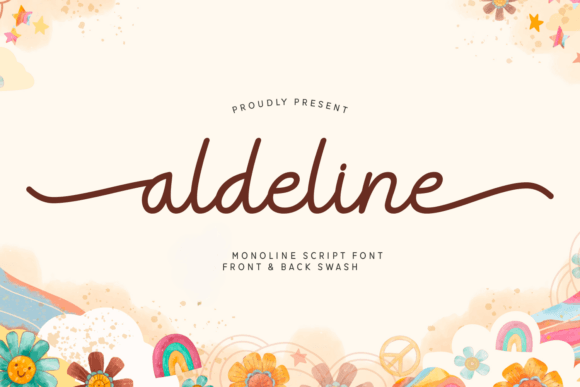
Aldeline Font: Elevate Your Design with Elegance
Have you ever stared at a blank page, trying to come up with the perfect font to match your creative vision? You know, that elusive combination of style and sophistication that makes your design truly stand out? For designers, finding the right font can be a game-changer. It’s the difference between a generic look and a unique, eye-catching visual identity.
Enter Aldeline Font, a stylish monoline script font that’s sure to elevate your design to the next level. With its smooth, flowing lines and elegant look, Aldeline Font is perfect for invitations, quotes, and logos. Its connected letters create a modern and artistic feel that’s both easy to read and visually striking.
Whether you’re a seasoned designer or just starting out, Aldeline Font is a valuable addition to your toolkit. Its versatility and sophistication make it a go-to choice for any project that requires a touch of creativity and elegance.
- Unique Characteristics: Aldeline Font features a unique blend of modern and classic elements, with elegant lines, subtle flair, and a sophisticated feel that sets it apart from other fonts.
Aldeline Font Review
Aldeline Font is a beautiful script font that exudes elegance and sophistication ✨. The flowing connections between letters and the subtle flair at the ends of strokes create a sense of fluidity and movement. This font is perfect for designs that require a touch of whimsy and romance.
- ✨ Elegant and sophisticated design
- ✨ Beautifully flowing connections between letters
- ✨ Perfect for romantic and whimsical designs
- ✨ Available in various font weights and styles
However, there are some limitations to consider ⚠️. The font can be quite delicate, which may make it difficult to read in smaller sizes or on low-resolution screens. Additionally, the font’s connections between letters can sometimes be distracting or overwhelming, especially when used in large blocks of text.
- ⚠️ Delicate design can be difficult to read in smaller sizes or on low-resolution screens
- ⚠️ Connections between letters can be distracting or overwhelming in large blocks of text
- ⚠️ Limited versatility in certain design contexts
Overall, Aldeline Font is a beautiful and elegant script font that is perfect for specific design contexts. While it may have some limitations, it is definitely worth considering for designs that require a touch of sophistication and romance.
Tips for Getting the Most Out of Aldeline Font
Use Aldeline Font in combination with high-quality images and graphics to create a visually stunning design. Experiment with different font sizes, colors, and styles to find the perfect balance for your design. Aldeline Font is also versatile and can be used in a variety of design contexts, from formal to informal.
Aldeline Font is ideal for:
- Business cards and corporate branding
- Luxury packaging and product design
- High-end fashion and beauty branding